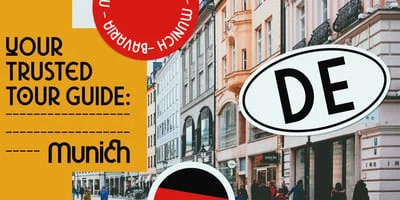
Tawakkal Sans Font
Tawakkal Sans Font is perfect for Islamic institutions, spiritual guidance centers, faith-based organizations, religious publications, Arabic cultural projects, trust-building brands, mindfulness applications, philosophical texts, and any project requiring typography with serene trust and spiritual reliance aesthetics.
What makes Tawakkal Sans Font exciting is its spiritual serenity that captures the profound Islamic concept of trust in divine providence with clean letterforms that embody the peaceful surrender and confident reliance found in true faith. This contemplative typeface reflects the beautiful balance between human effort and divine trust with geometric simplicity that conveys clarity, reliability, and the calm assurance that comes from complete spiritual surrender. The font's faithful character and spiritual sophistication make it perfect for projects celebrating trust, faith, and the transformative power of surrendering control to higher wisdom.
The Tawakkal Sans Font family includes light, regular, and bold weights, featuring complete uppercase and lowercase alphabets, numerals, punctuation marks, and spiritually-inspired design elements. The font maintains consistent spiritual elegance throughout all weights while ensuring excellent readability for both faithful headlines and contemplative text applications in religious and spiritual contexts.
Whether you're designing for Islamic organizations, creating spiritual content materials, or developing faith-based branding with trust aesthetics, Tawakkal Sans Font delivers unmatched spiritual sophistication and faithful tranquility to your projects. This remarkable typeface transforms ordinary text into expressions of divine trust that celebrate the beauty of spiritual surrender and the peace found in complete reliance on divine wisdom. The font's spiritual character makes it ideal for mosques, religious educators, and faith-based organizations. Download this exceptional font today and bring the serene confidence of spiritual trust to your design projects with authentic Islamic sophistication and tawakkal-inspired faith.